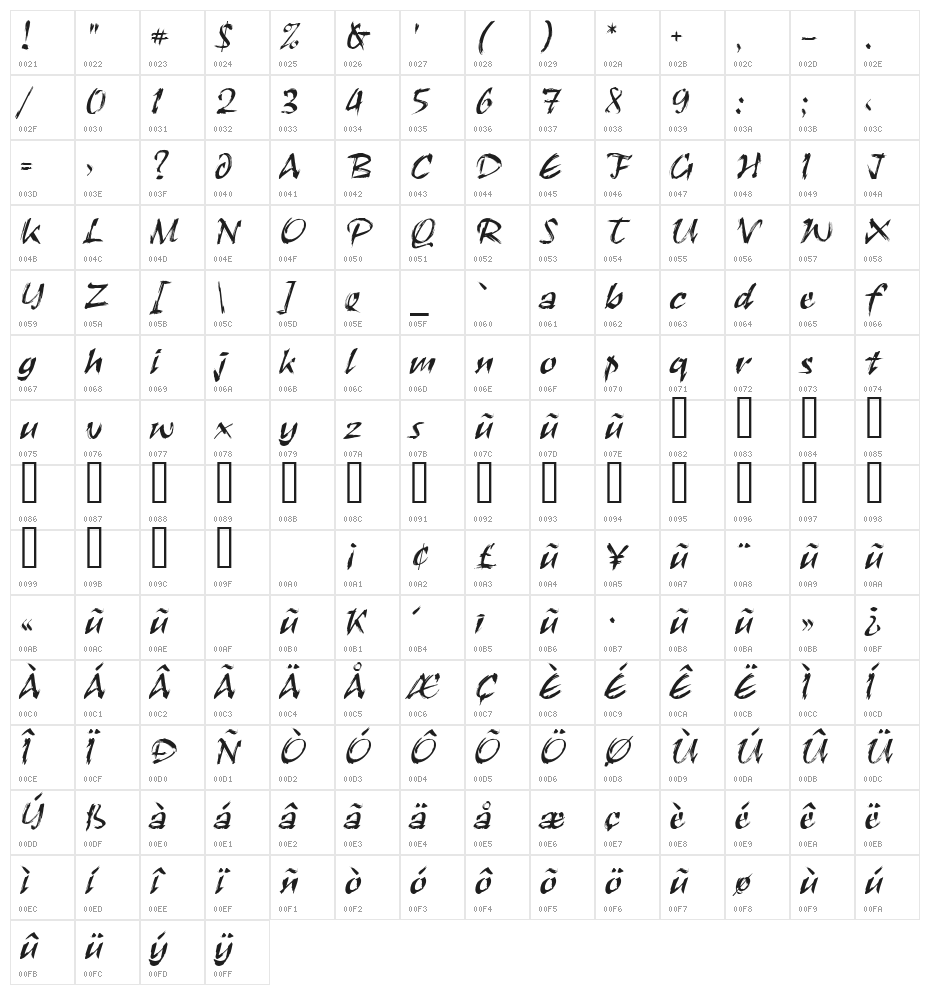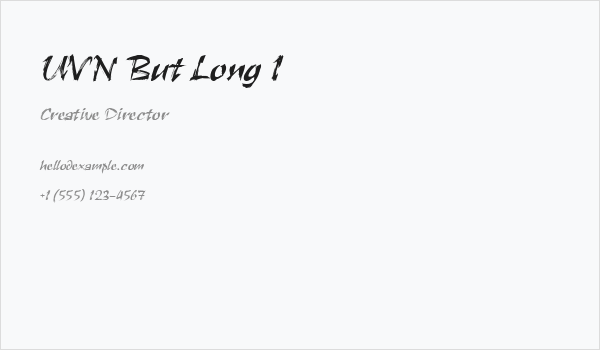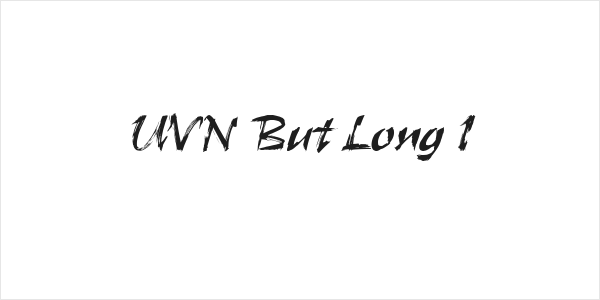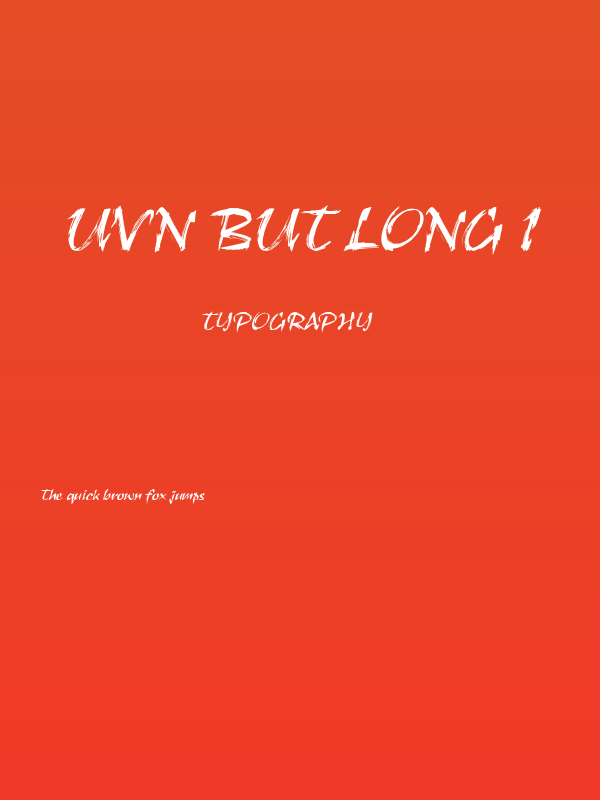
UVN But Long 1 Font
UVN But Long 1 Description
This font features a dynamic and expressive brush style, characterized by its bold and energetic strokes. The letters have a hand-painted appearance, with varying thickness that adds a sense of movement and flair. The uppercase and lowercase characters maintain a consistent style, with sharp angles and fluid curves that create a sense of urgency and creativity. The numbers and special characters are equally expressive, making them suitable for attention-grabbing designs. The overall aesthetic is both artistic and modern, perfect for projects that require a bold statement.
| Proposed Projects | Ideal for posters, logos, branding, and artistic projects that require a bold and creative touch. |